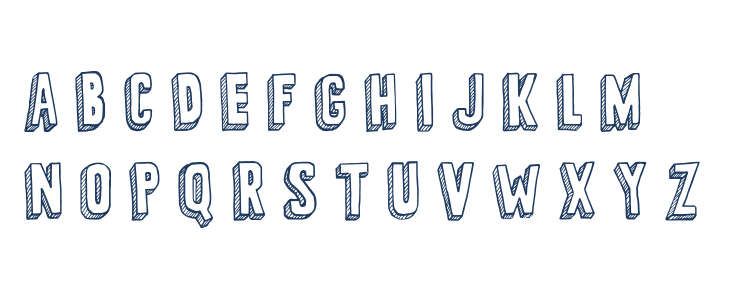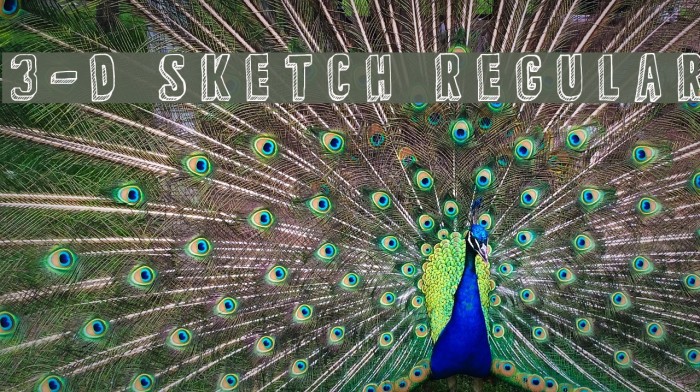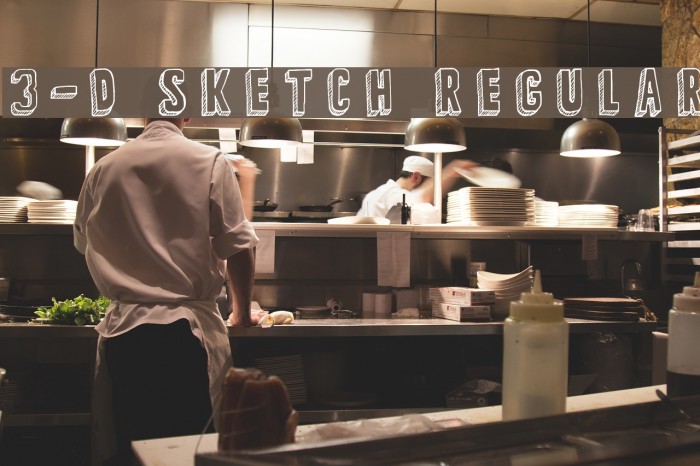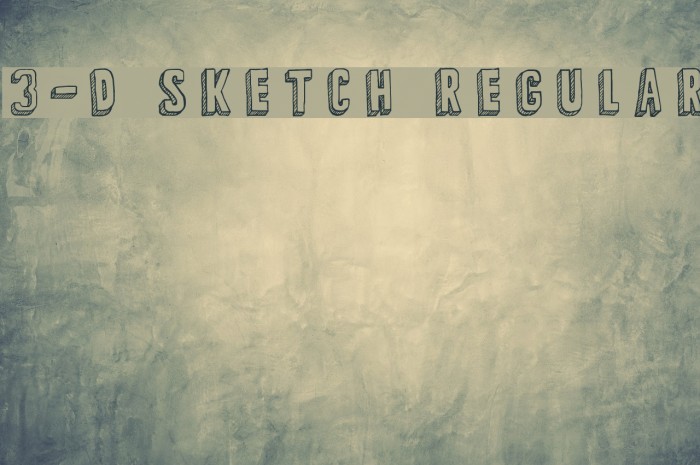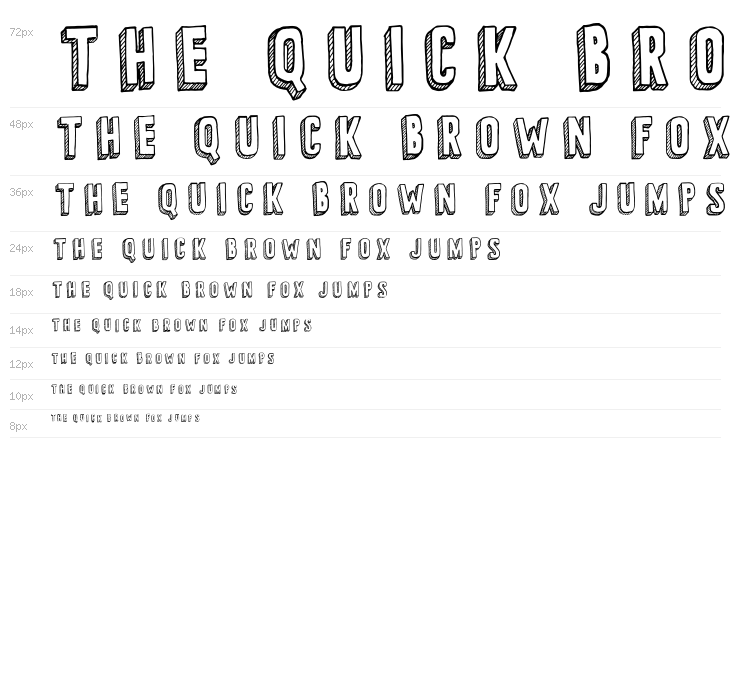
3-D Sketch Regular Font
3-D Sketch Regular Description
This font features a playful and dynamic 3D sketch style, characterized by bold, hand-drawn letters with a shadow effect that gives a sense of depth. The uppercase and lowercase letters maintain a consistent style, with a slightly irregular, artistic touch that adds to its charm. Numbers and special characters are included, each following the same sketch-like aesthetic. The font's unique appearance makes it stand out, ideal for creative projects that require a fun and engaging visual element.
| Proposed Projects | Perfect for children's book covers, comic titles, playful branding, and creative posters. |